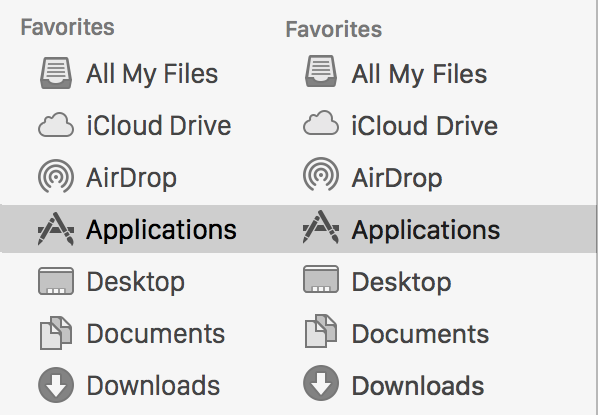
Just upgraded to El Capitan and really dislike the new San Francisco font. Does anyone know how to switch back to the font we had in Yosemite? Thanks in advance.
Lucida Grande, yes... but Helvetica Neue...? Eww...!!!
The only place that I would like them to revert from SF to HN is iOS 9...
Hi, pls help me. I want to change the default system font in El Capitan? How can I do this? Fron San Francisco to Helvetica Neue
Evidently Apple has decided that using an ugly, quirky font is a great way to individualize themselves and create a brand identity.
Thing is, this is MY computer, not theirs. I don't like their crappy new font and I DON'T want it on my Mac, ANYWHERE. How can I permanently get rid of it?
Y'know, back in the OS 9 days, Apple actually gave us a CHOICE which font we would like to use for the main system font. Whatever happened to freaking choice, Apple? Why can't you have like five or six nice fonts, and let the user pick what suits them best?
Because I'm about to go insane from how terrible of a font San Francisco is. It's killing me!!!
Thing is, this is MY computer, not theirs. I don't like their crappy new font and I DON'T want it on my Mac, ANYWHERE. How can I permanently get rid of it?
Y'know, back in the OS 9 days, Apple actually gave us a CHOICE which font we would like to use for the main system font.
Evidently Apple has decided that using an ugly, quirky font is a great way to individualize themselves and create a brand identity.
Thing is, this is MY computer, not theirs. I don't like their crappy new font and I DON'T want it on my Mac, ANYWHERE. How can I permanently get rid of it?
Y'know, back in the OS 9 days, Apple actually gave us a CHOICE which font we would like to use for the main system font. Whatever happened to freaking choice, Apple? Why can't you have like five or six nice fonts, and let the user pick what suits them best?
Because I'm about to go insane from how terrible of a font San Francisco is. It's killing me!!!
PS — Other than the font I really like 10.11.
give it time, and you'll adapt. it's your computer, but you're licensing apple's OS. meanwhile, disabling SIP and removing the primary system font is not something to do...unless you want to hose the system. be patient...it's not like it's Comic Sans or something. one morning you'll wake up and forget about the font, and be focused on the work (or play)....
Yup, it was very customizable. Kaleidoscope (third party) let you completely change the look of your Mac, and then Apple started offering themes that also changed the look somewhat. They never released as many as they originally planned (Steve Jobs nixed that). There are some things about OS 9 I still miss a lot. The themes had sound effects. Those sounds were so satisfying--and they were in stereo so as you moved your mouse from menu item left to right the sound would move left to right. I don't remember how many fonts to choose from there were, but it was a good number.
Two last awesome OS 9 features: detachable application switcher. I loved this. Took up less space than the dock and was very clean looking. And detaching menu bars were just really cool. And the other was the control strip. You could get at every setting you needed very quickly and collapse as needed. I have to add a third: I miss collapsing windows into their title bar.
I stand with the others who have fond memories of OS 9. One of my favorite operating systems of all time.